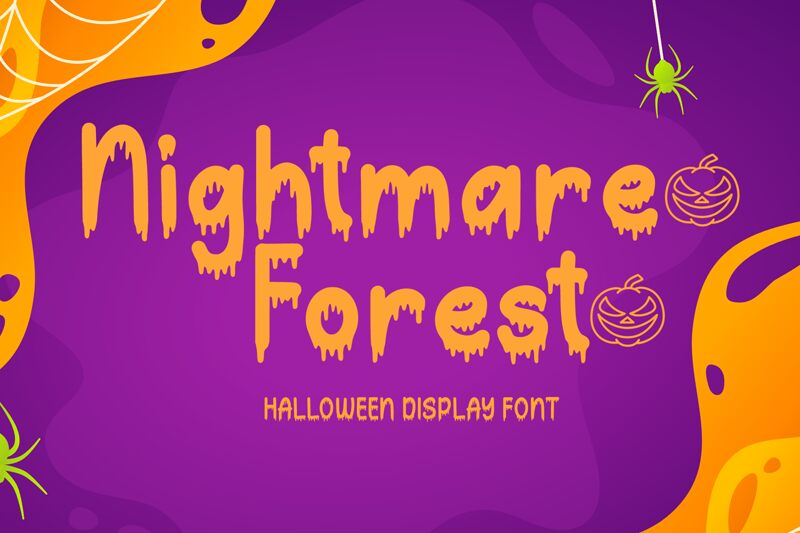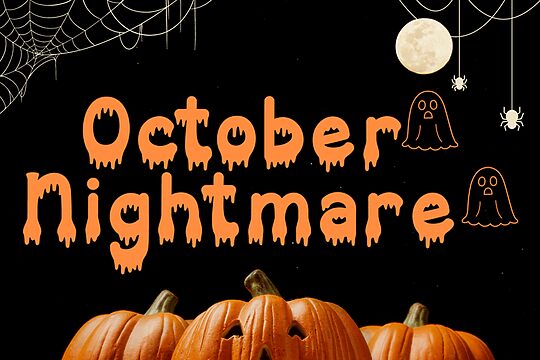
Nightmare Forest font by AEN Creative Studio is a Halloween-themed font with an eerie aesthetic. Its unique character style has a dripping effect that catapults users into a quirky mood that is just right for the spookiest time of the year. This free font is also versatile as each distinctive character can be used as part of a long, themed word or be a stand-alone element for insertion into different art pieces.
Nightmare Forest has a strong novelty appeal, but can still be applied to professional and commercial purposes like branding, advertisements, campaigns, and marketing material. It can be used on packages, apparel, apparel design, and more. This versatility also means that it can be used in personal art projects, magazines, business cards, and invitations & greeting cards.